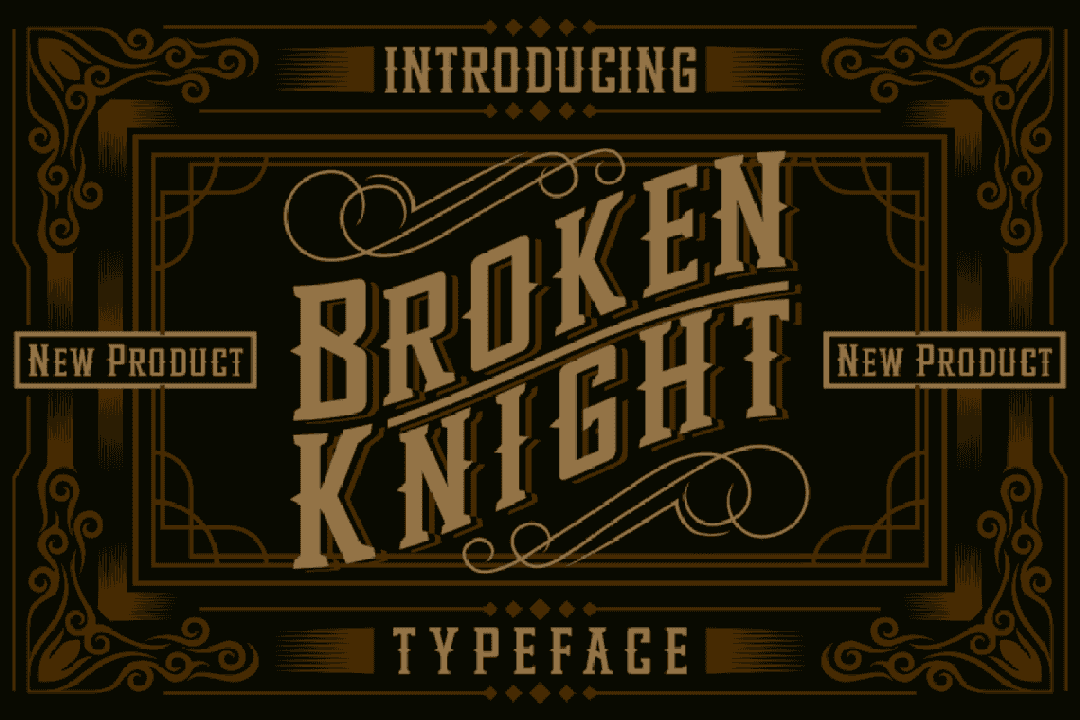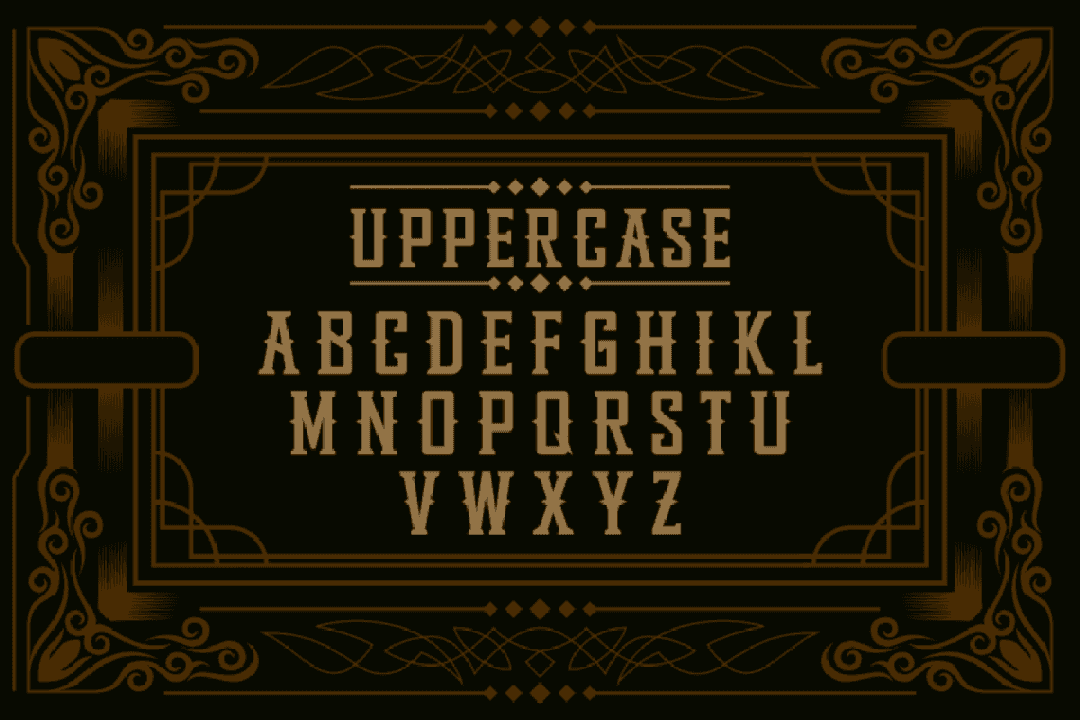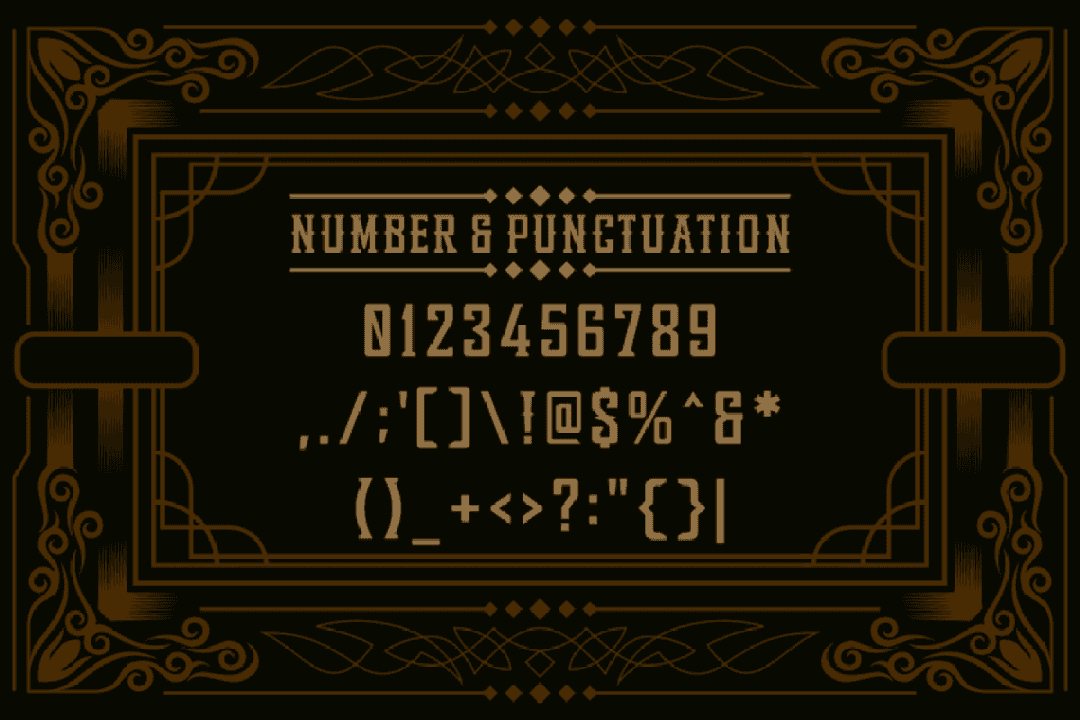
Broken Knight is a striking and eye-catching display font, in black with an antique style. When included in your designs, its bold display style will leave an unforgettable mark! Broken Knight can be used for numerous projects including logos and branding sci-fi posters packaging products advertising invitations port clothing gaming industry movies and any futuristic typography projects.